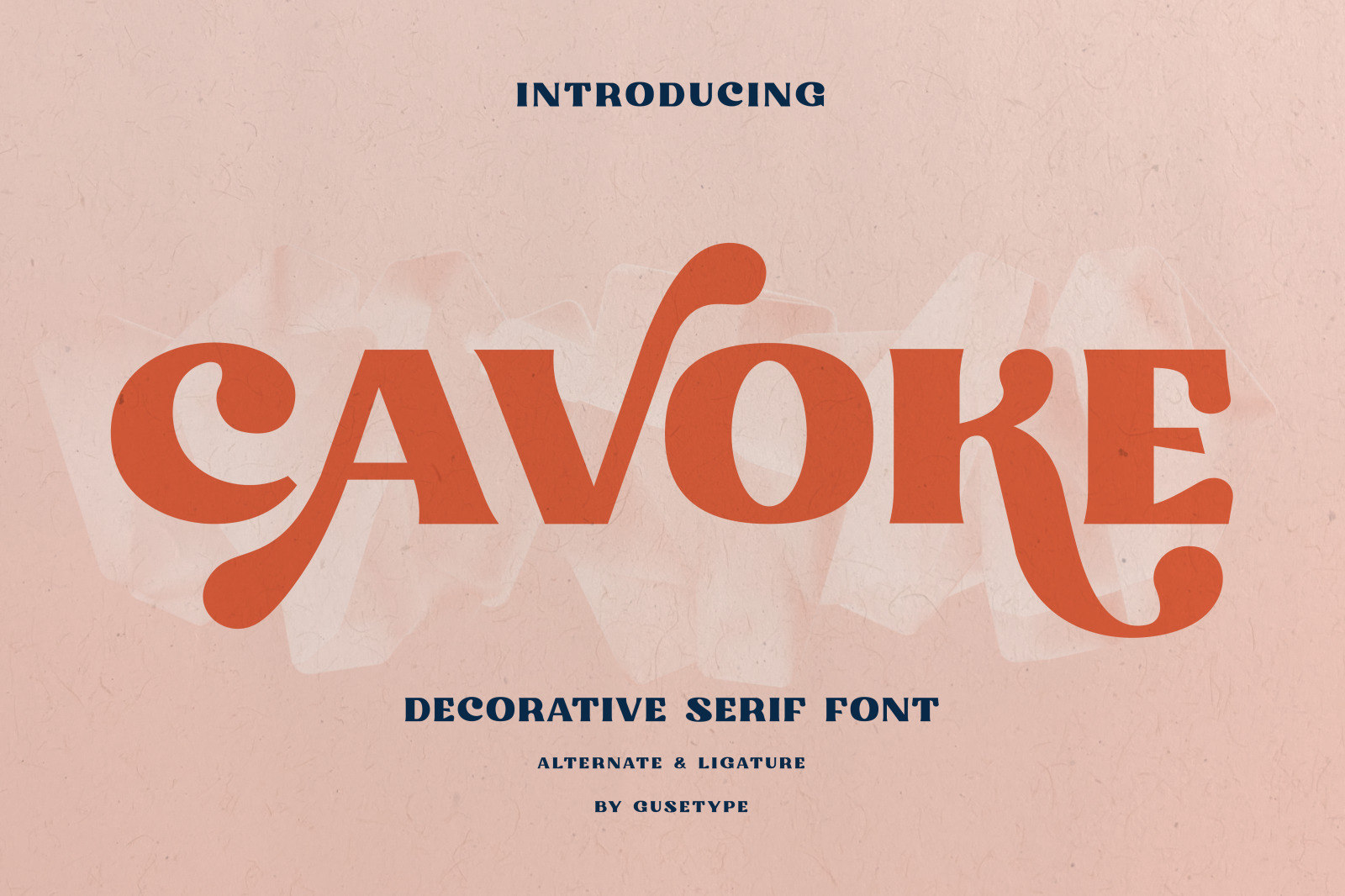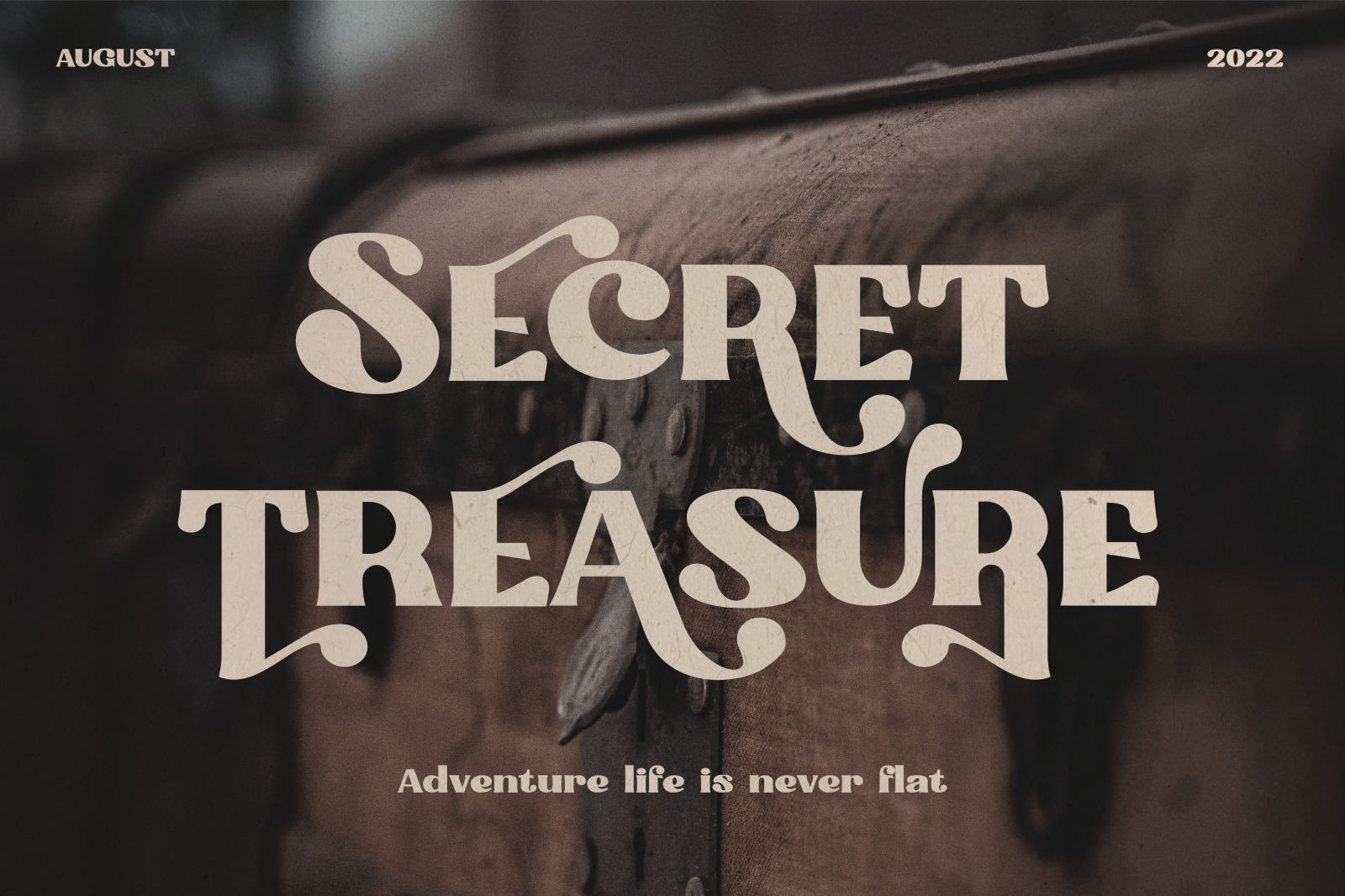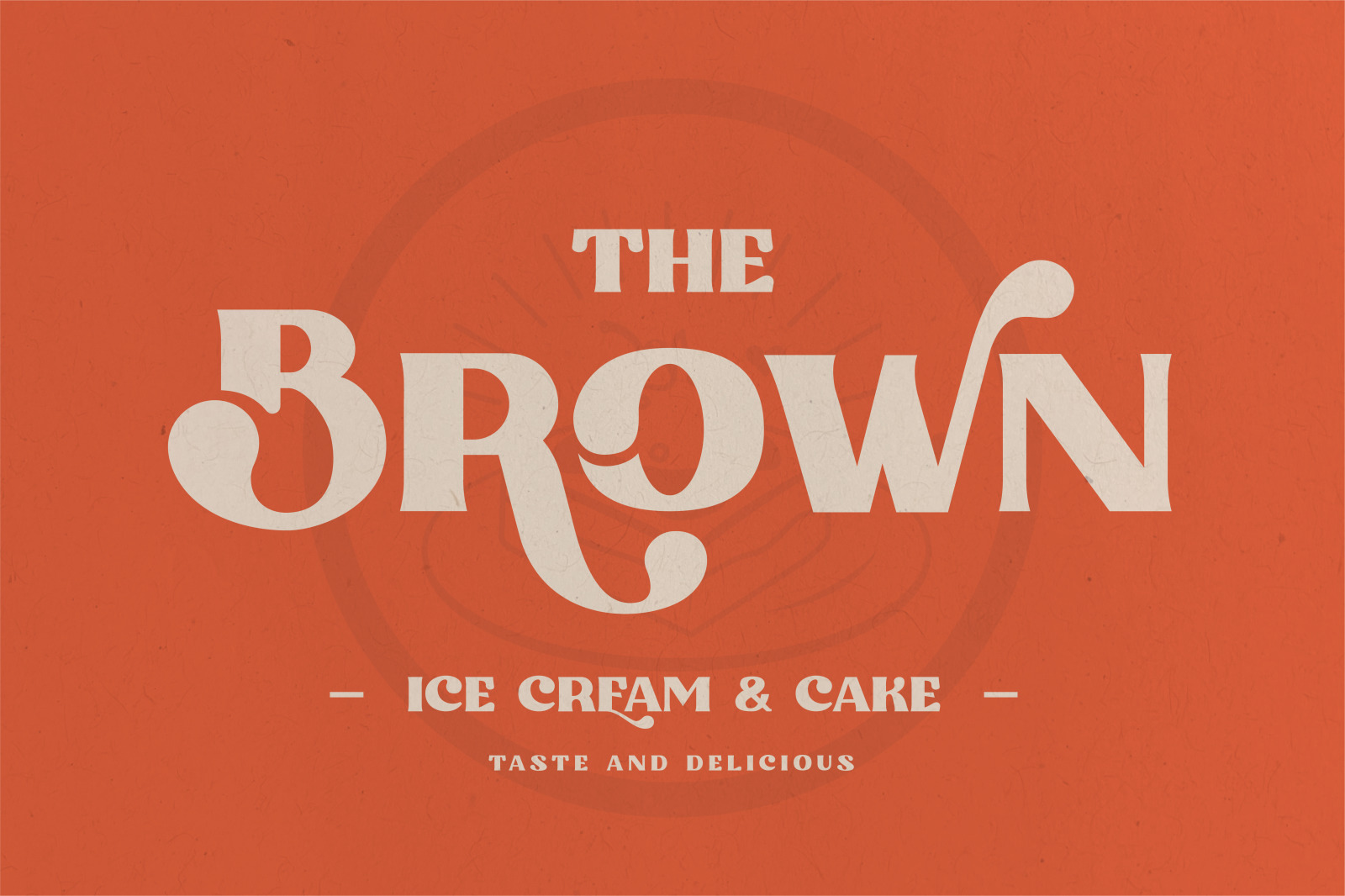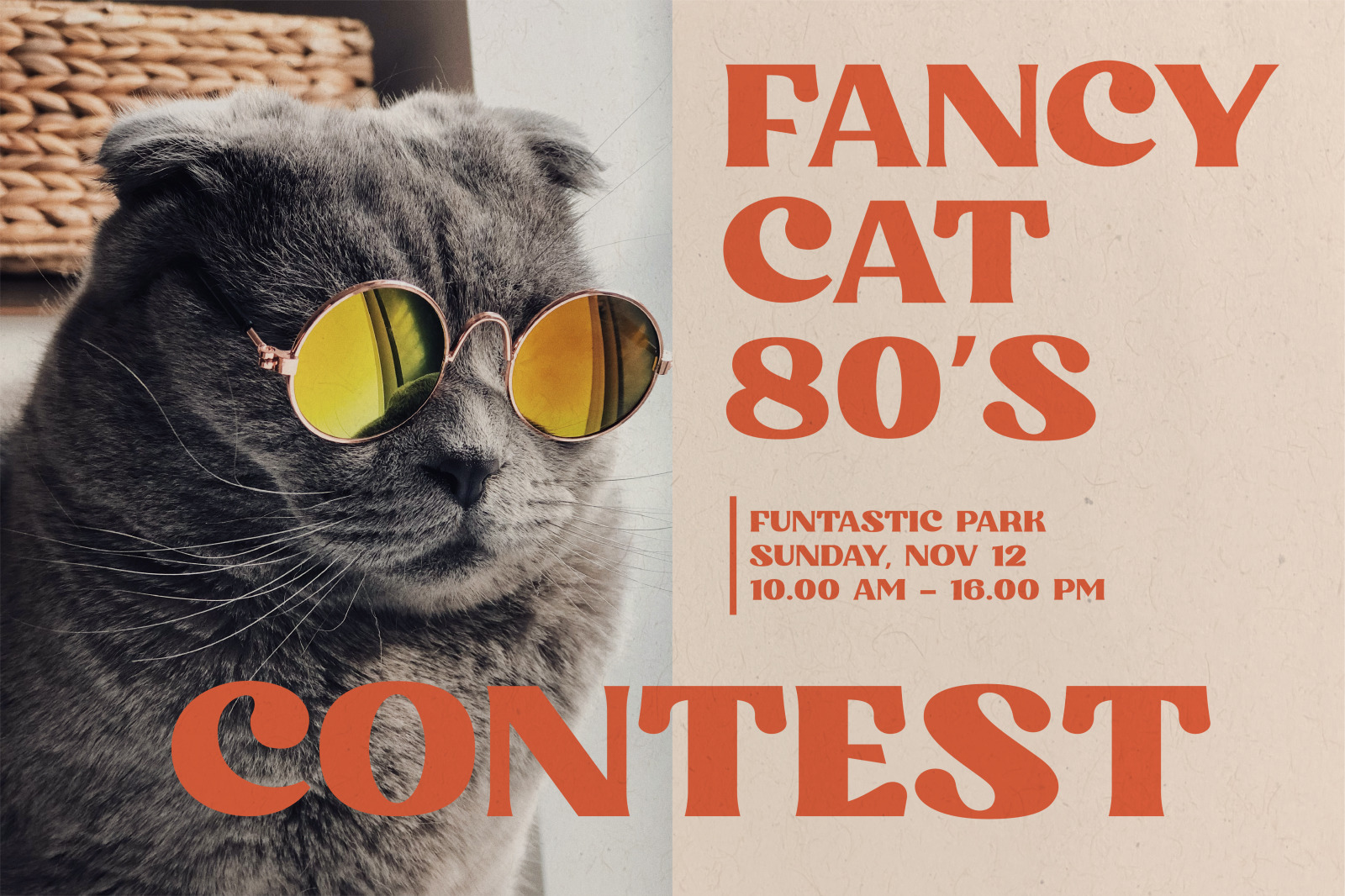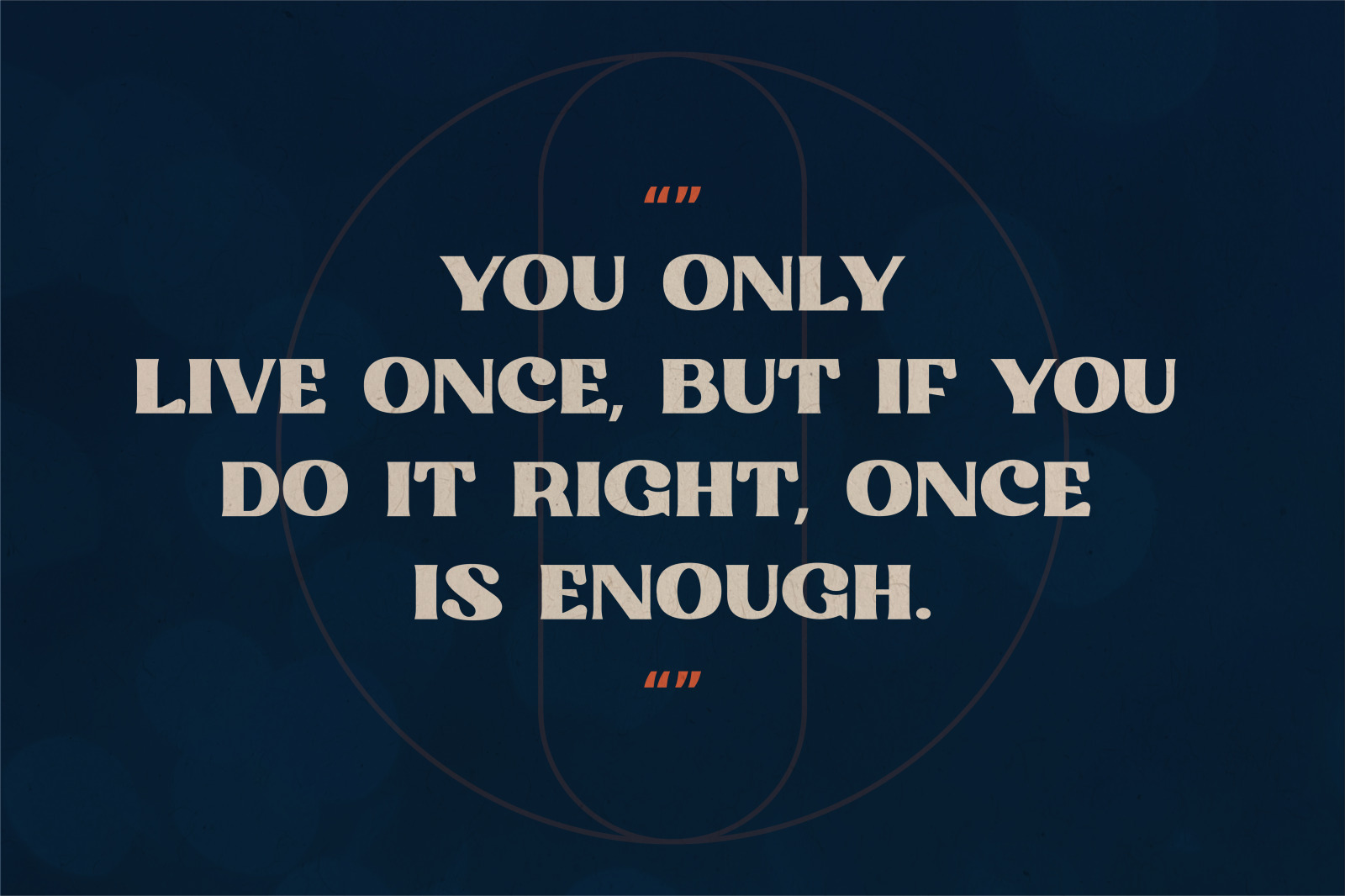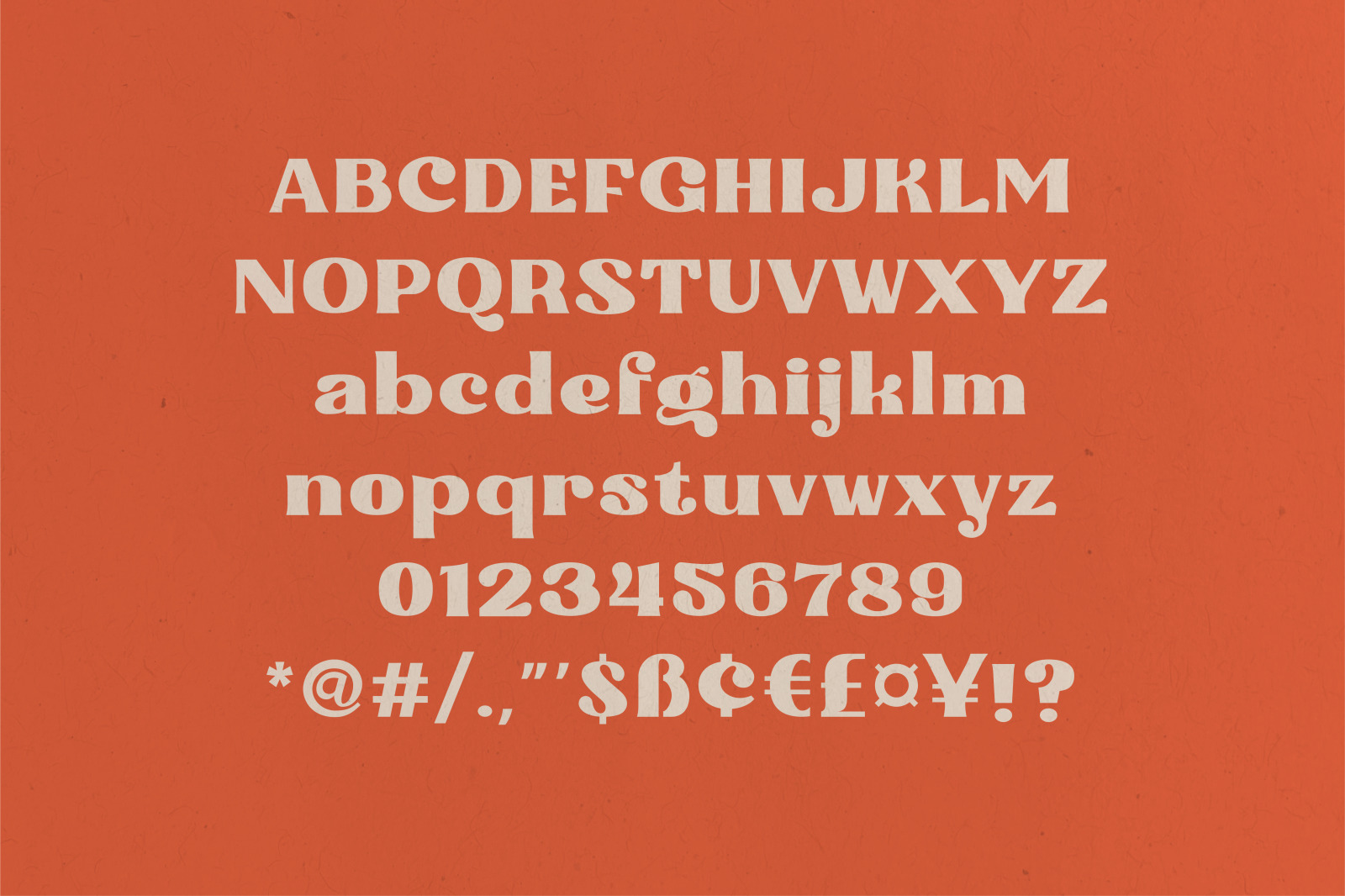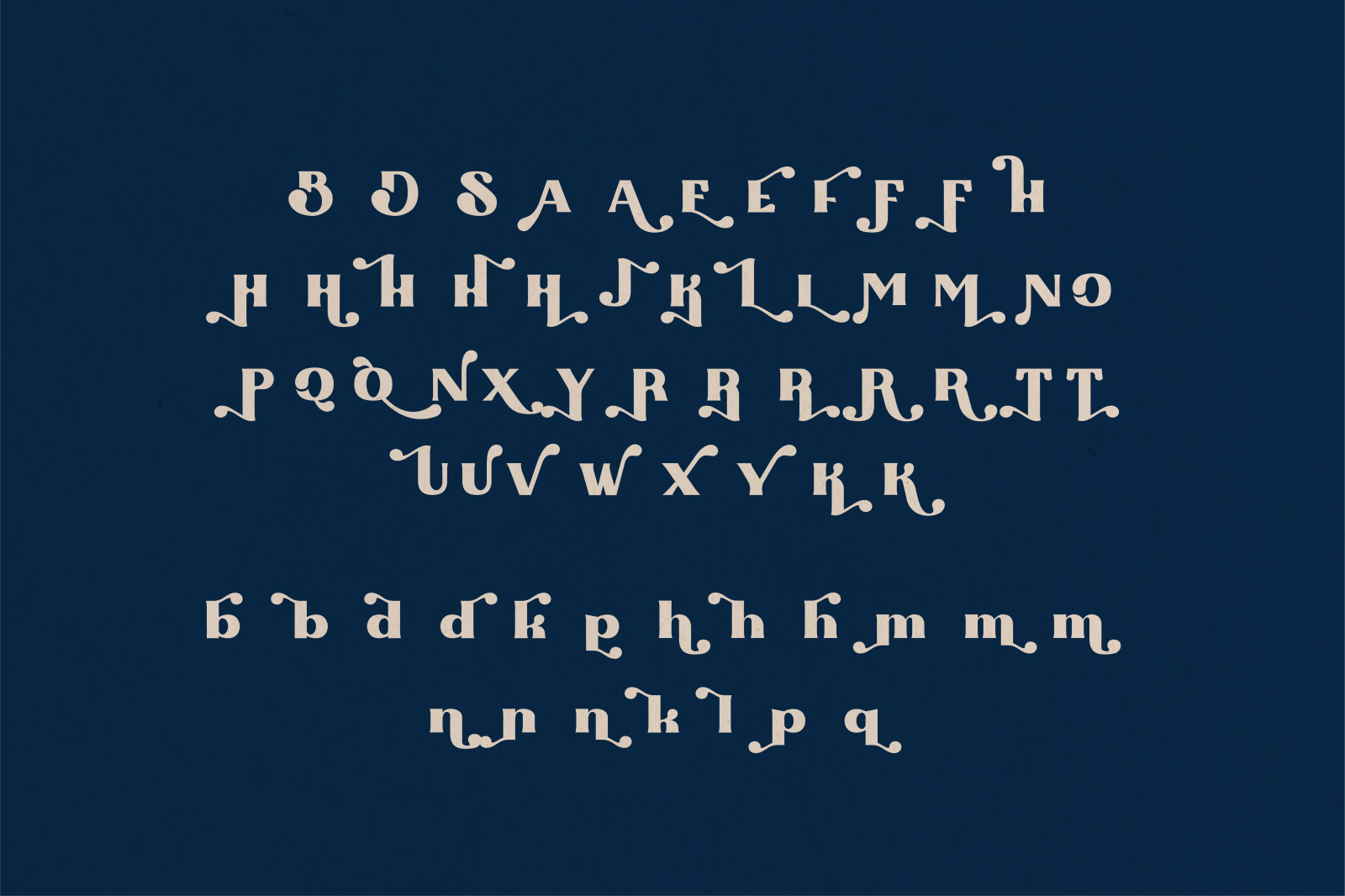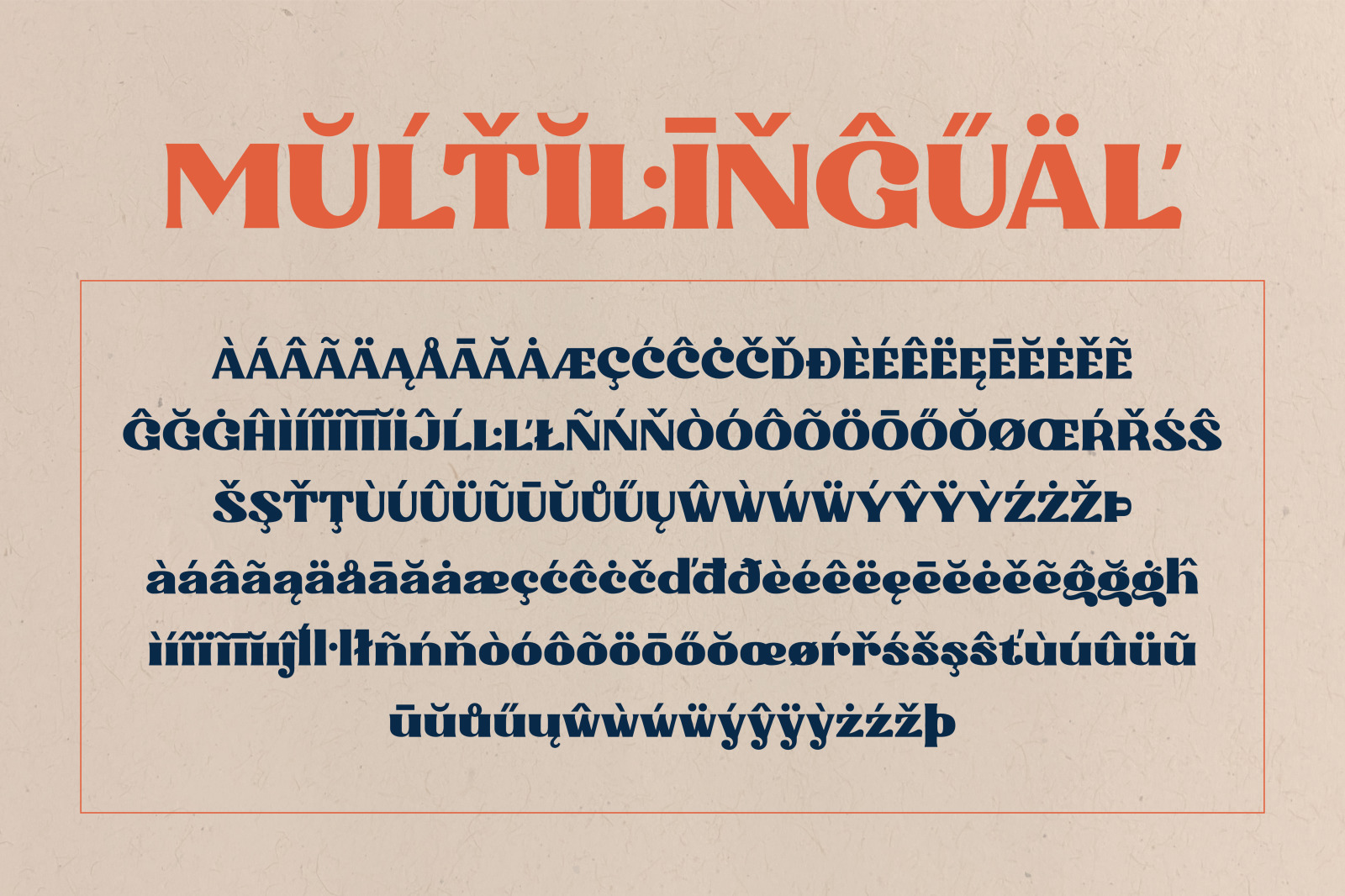
Cavoke - Decorative Font
Cavoke is a decorative serif font. This font can be used for retro and vintage designs, you also can use for posters, headlines, logotypes, magazines, brand identity and more.
- Kerning
- Alternative Style and Ligature
- Uppercase and Lowercase Letters
- Numeral
- Punctuation and Symbols
- Multilingual Supports